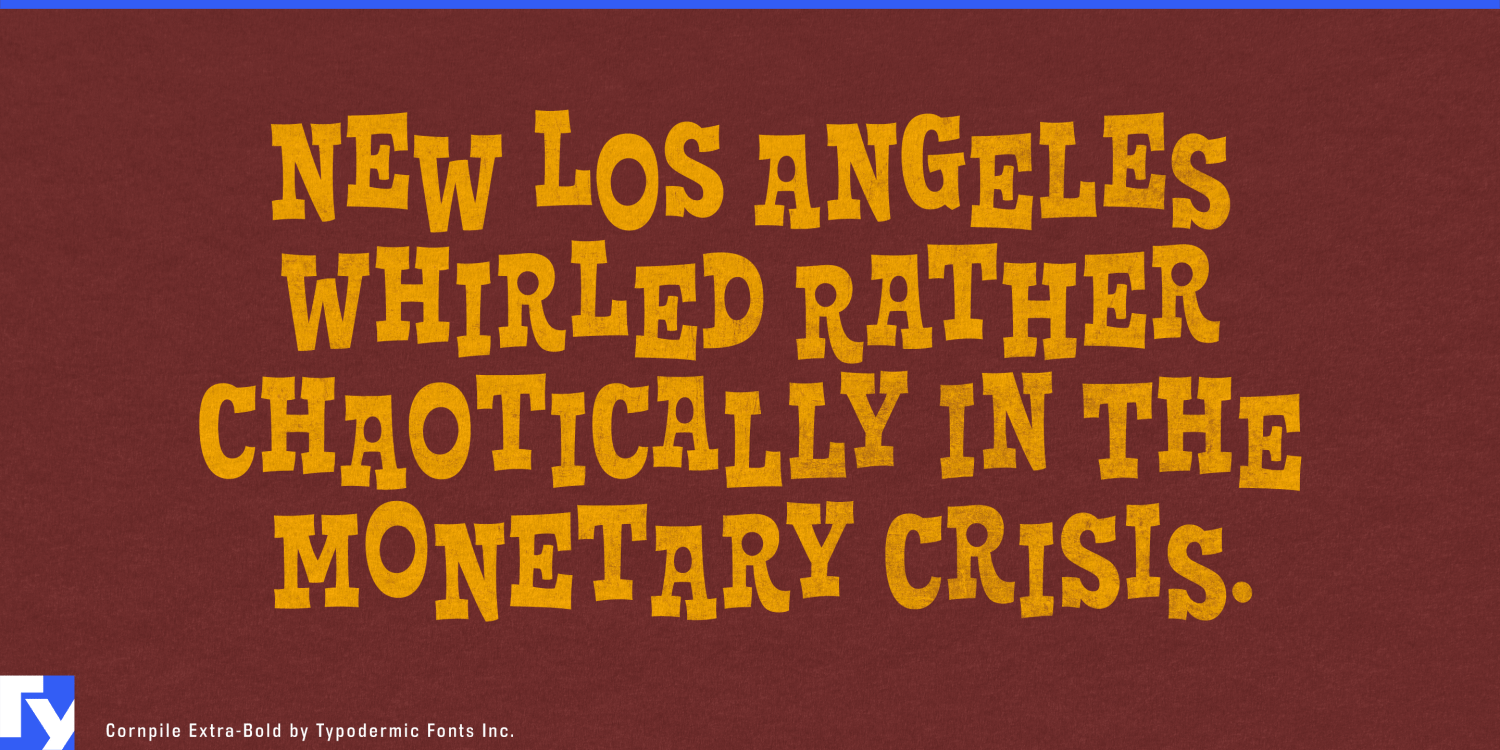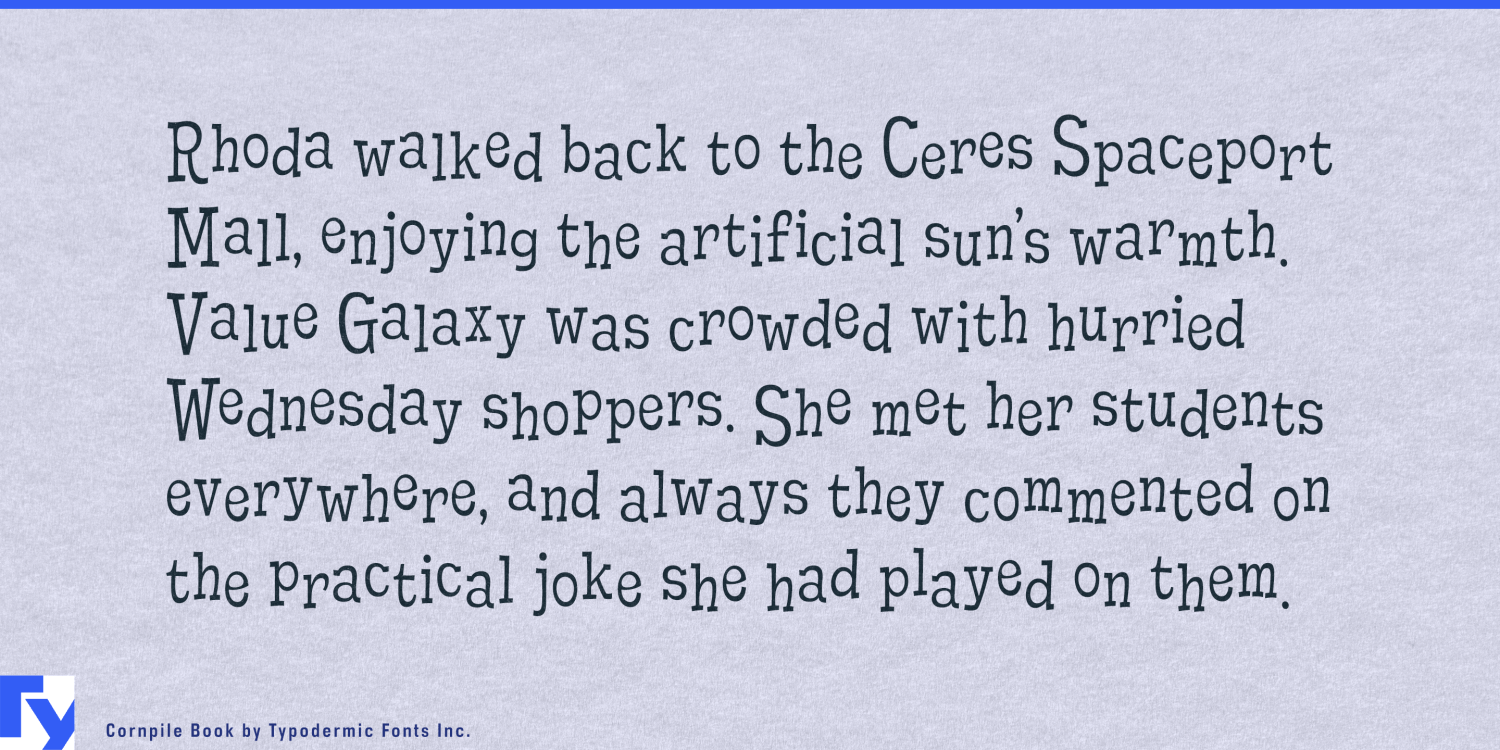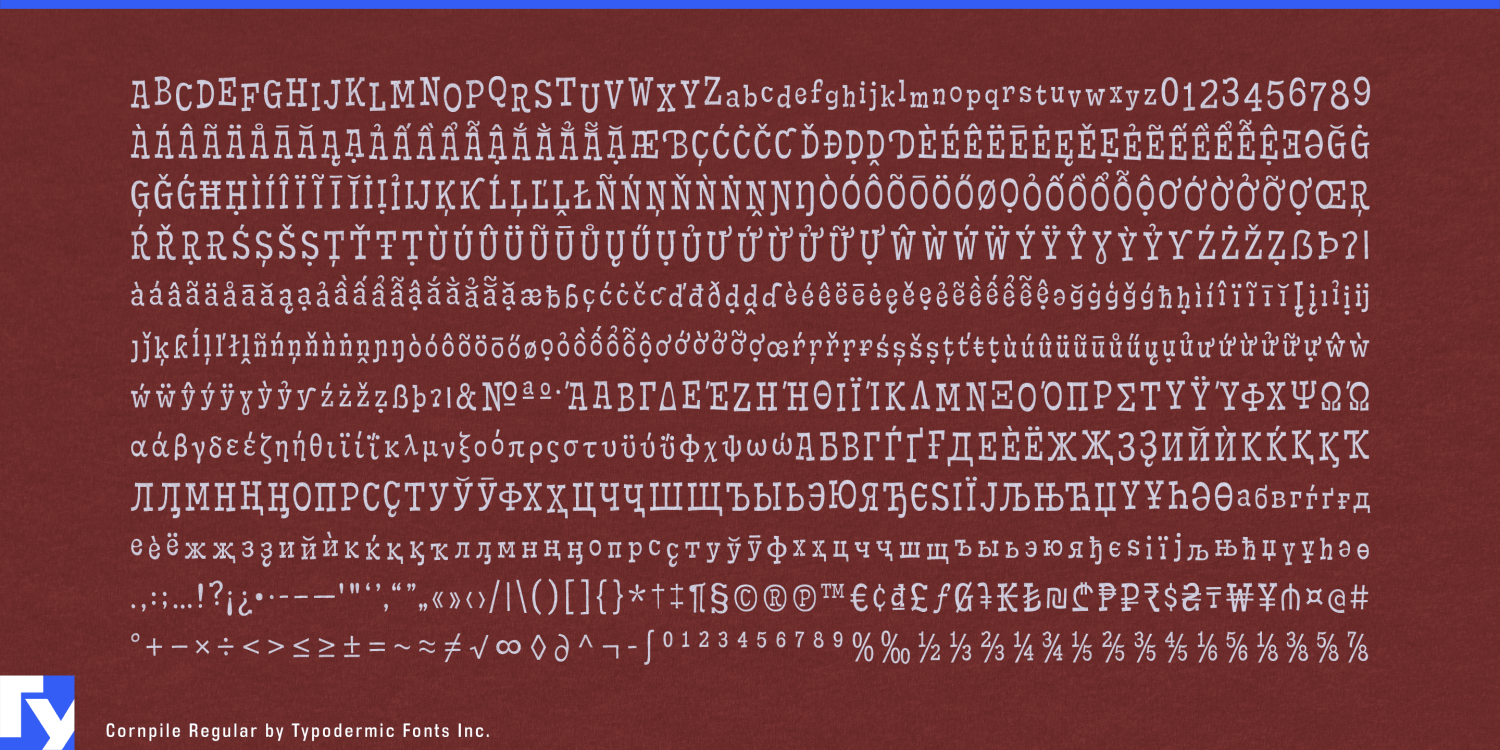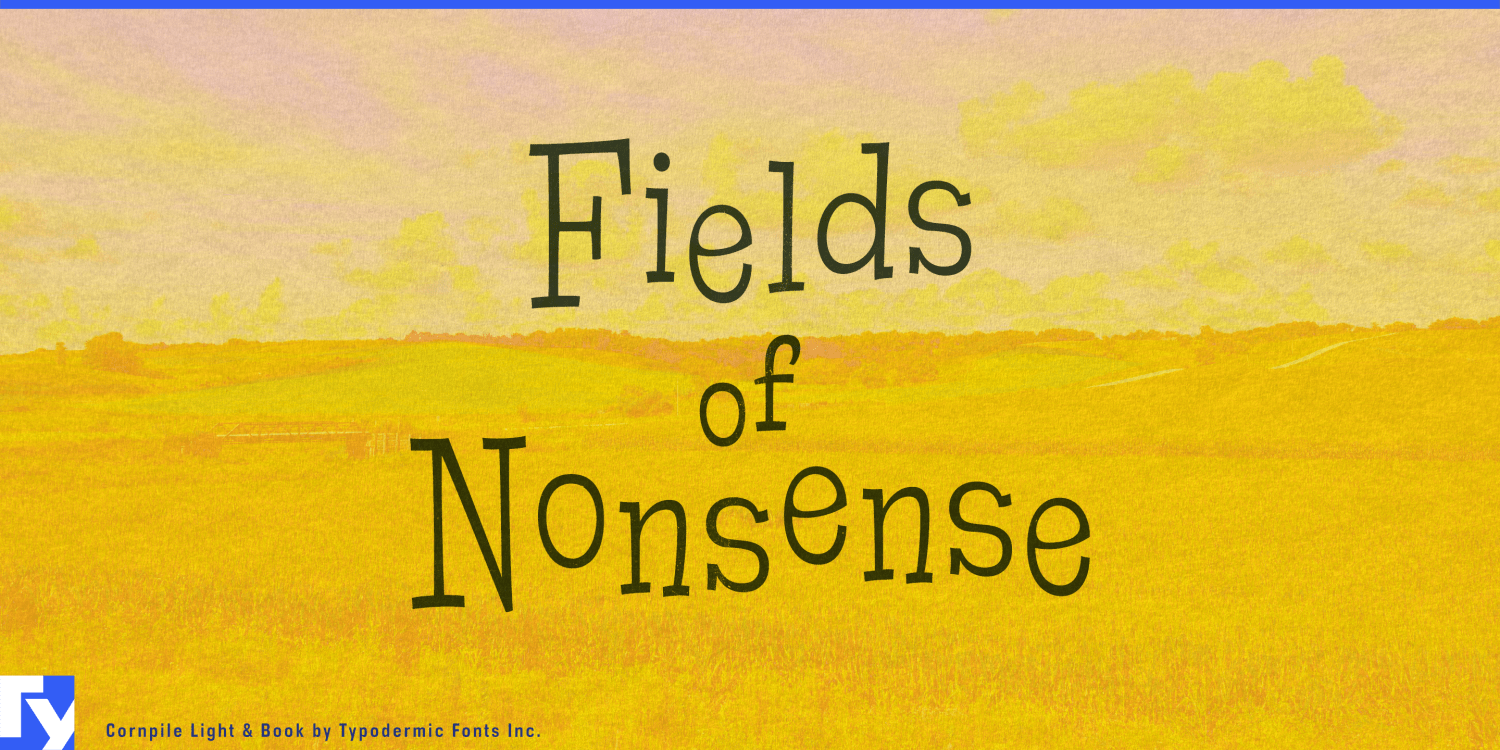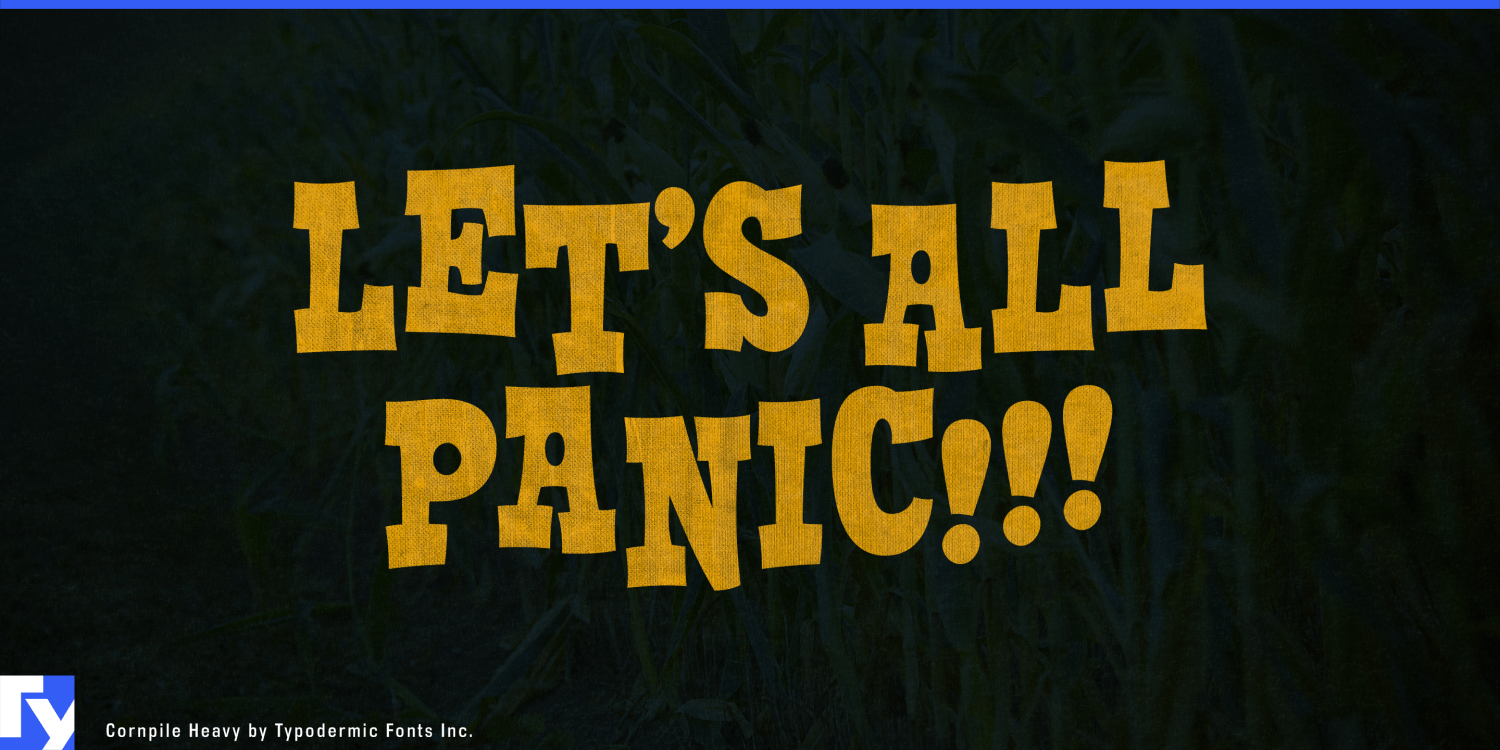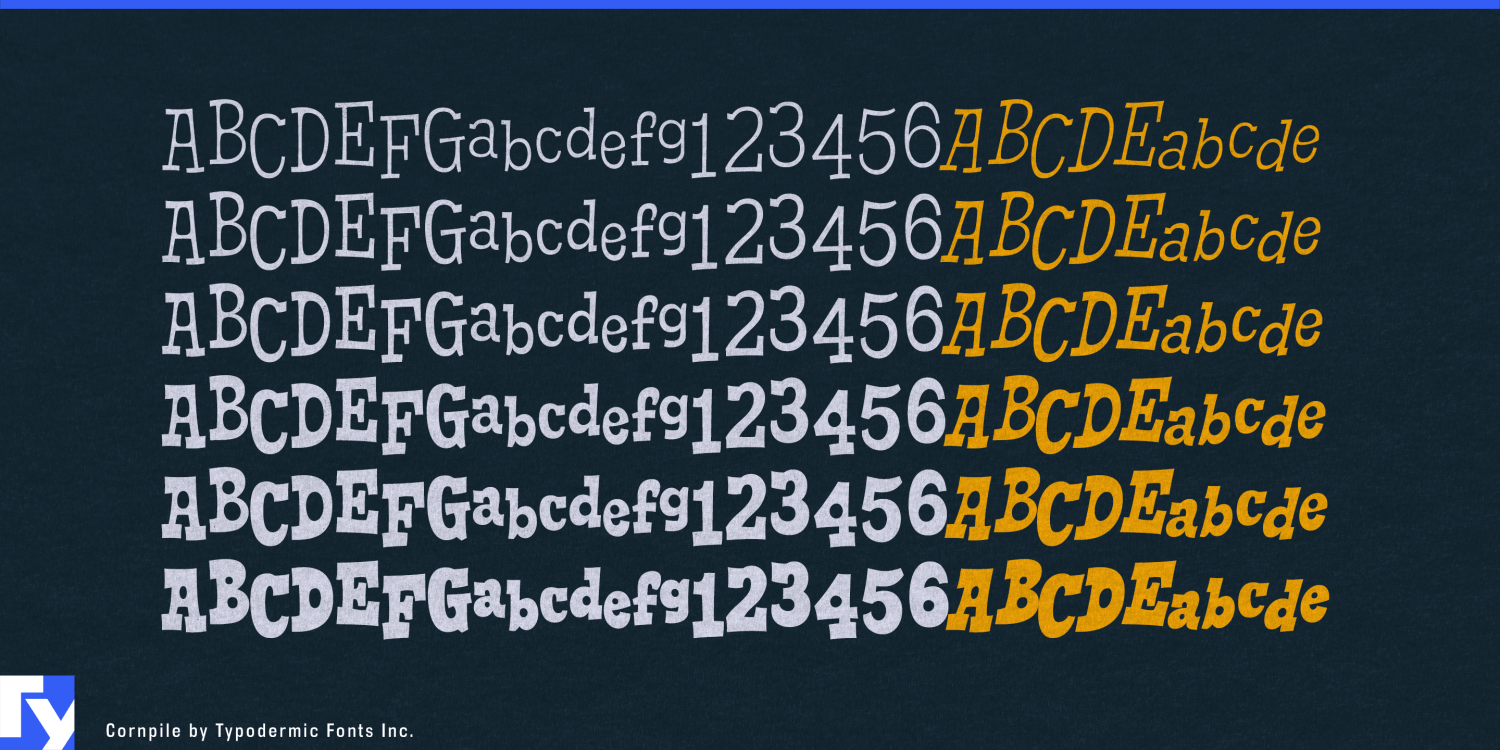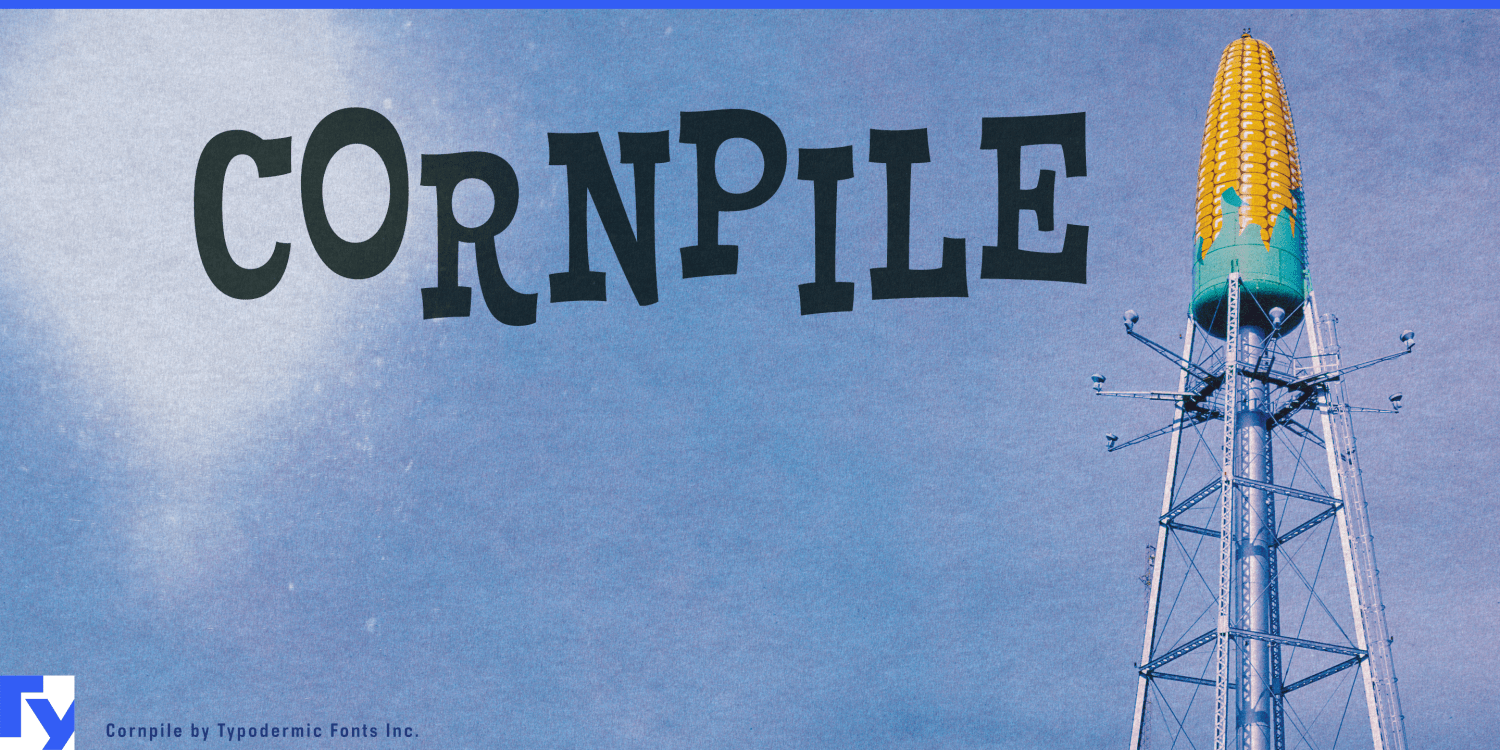
Cornpile
Get ready to harvest a bumper crop of creativity with Cornpile, the slab-serif typeface that’s as wholesome and fun as a summer day in the cornfields! This quirky, cartoon-inspired font doesn’t just grow on you—it pops right off the…